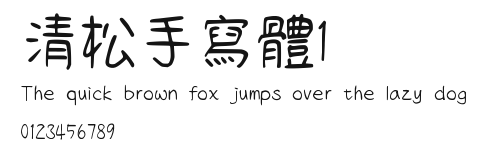
清松手寫體1 Preview
• Font Name: 清松手寫體1
• Font ID: FontForge : JasonHandwriting1 Regular : 16-2-2020
• Full Font Name: 清松手寫體1
• Version: Version 1.37
• PostScript Name: JasonHandwriting1-Regular
• Character Count: 10401
About 清松手寫體1.ttf
清松手寫體1.ttf is a modern, elegant sans-serif font designed for ultimate readability and visual harmony. Perfect for branding, headlines, web design, and print materials.